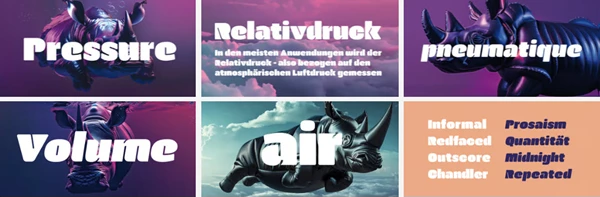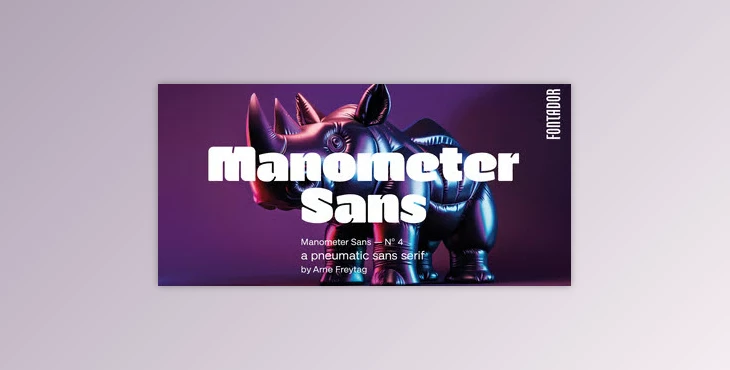
Manometer Sans Font Family 2xOTF is an ultra-bold sans serif with a pneumatic type design. It's the perfect font to turn to when your typographical project needs to be noticed. Pneumatic type is often found in branding and advertisement-- making this an ideal font choice for such endeavors.
Ultra bold sans serif pneumatic clean lines with a heavy weight render this font usable for web and print alike. It's a very modern-looking choice that works well for logos, headlines, and any other text that requires extensive reading. Such readability creates not only appeal but a charm about the page that assists in successful conveyance. Those looking to make an impression should turn to this font.